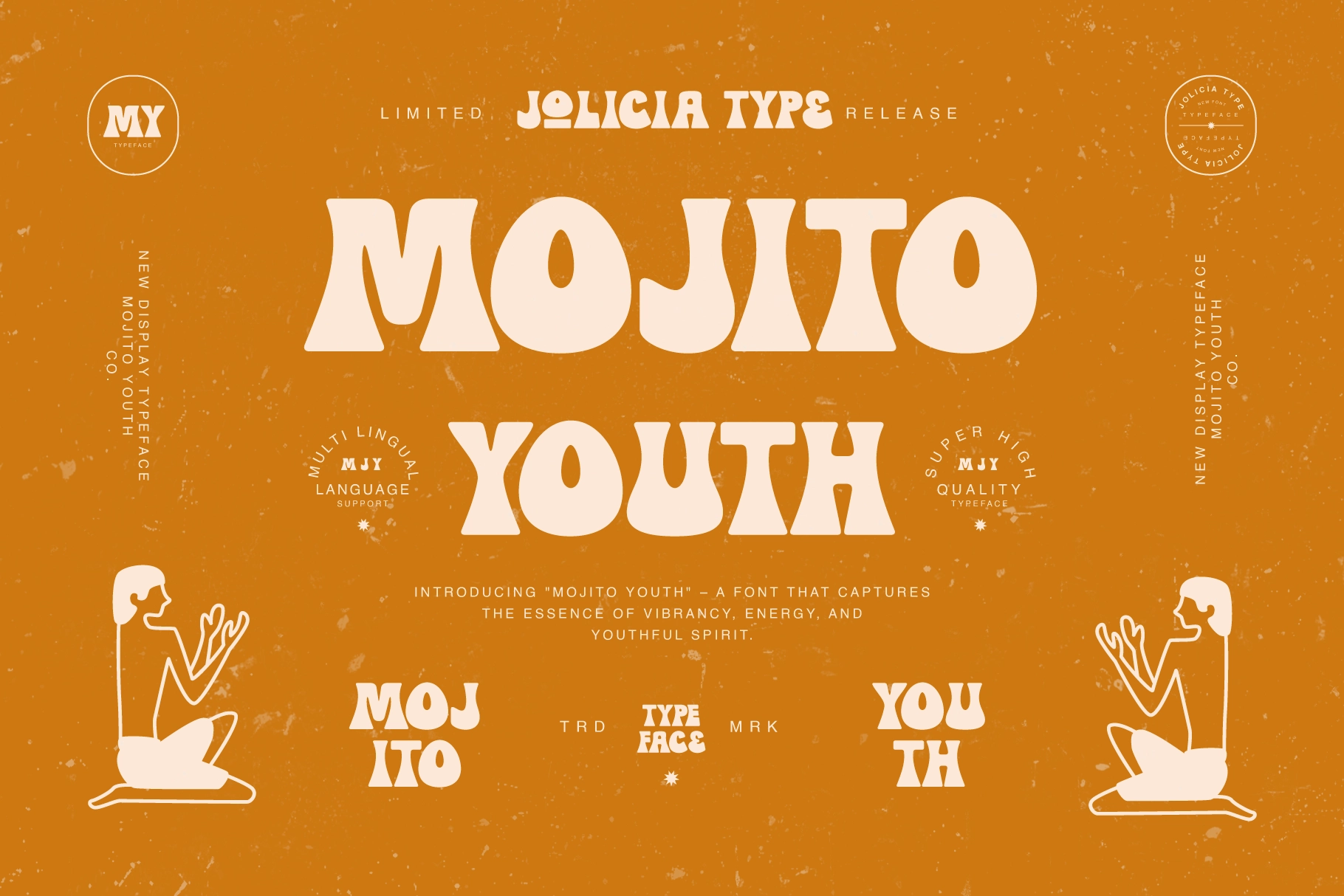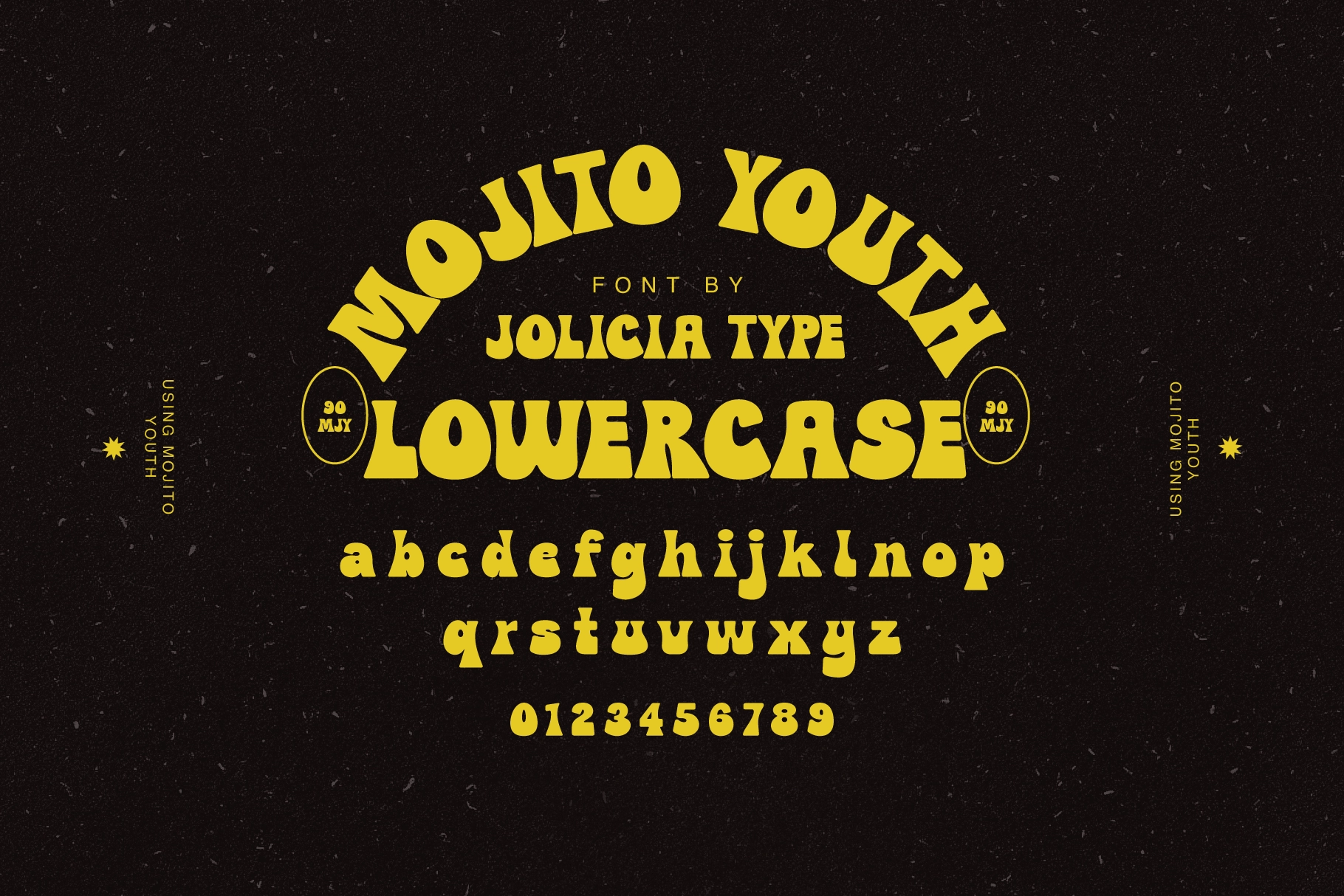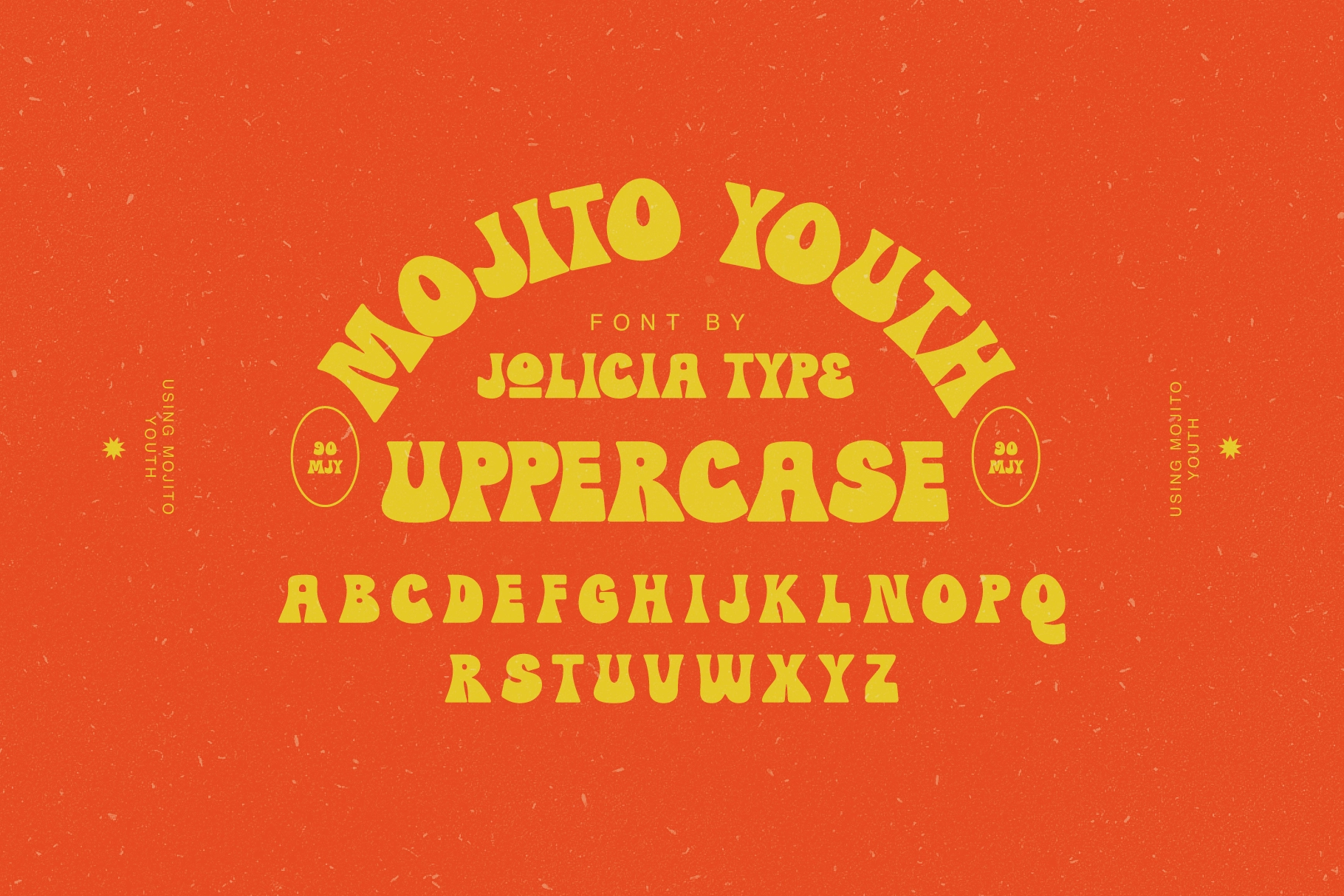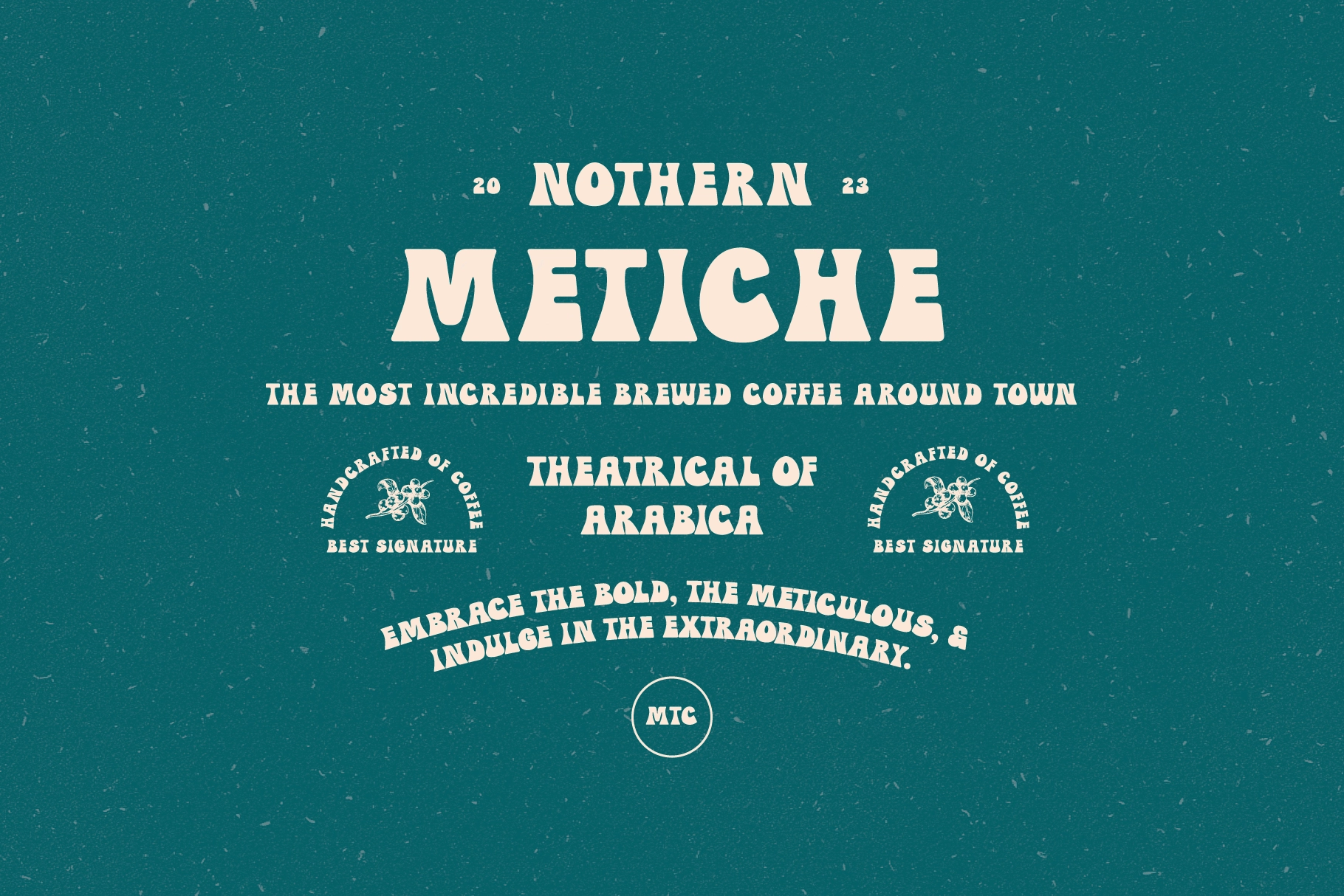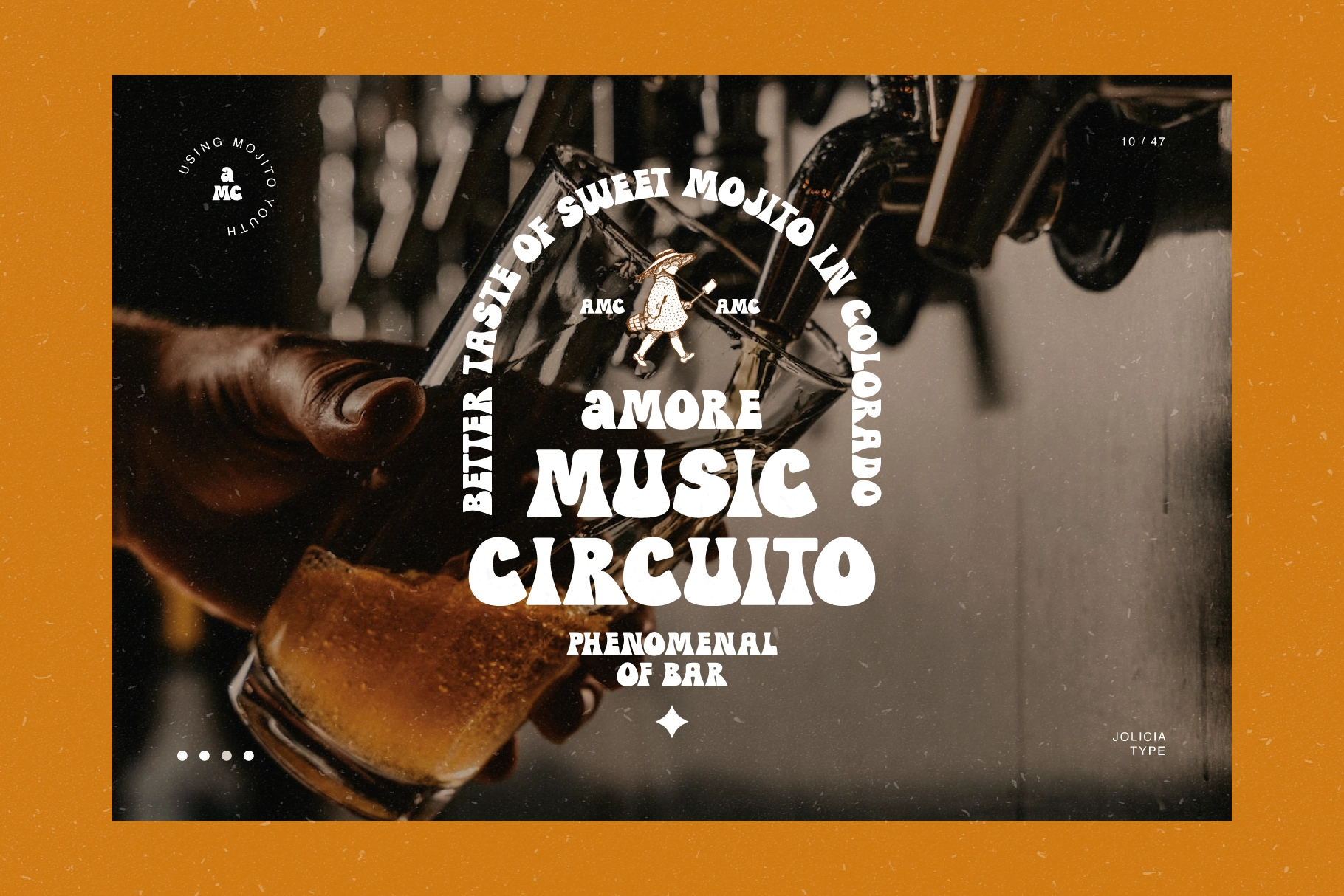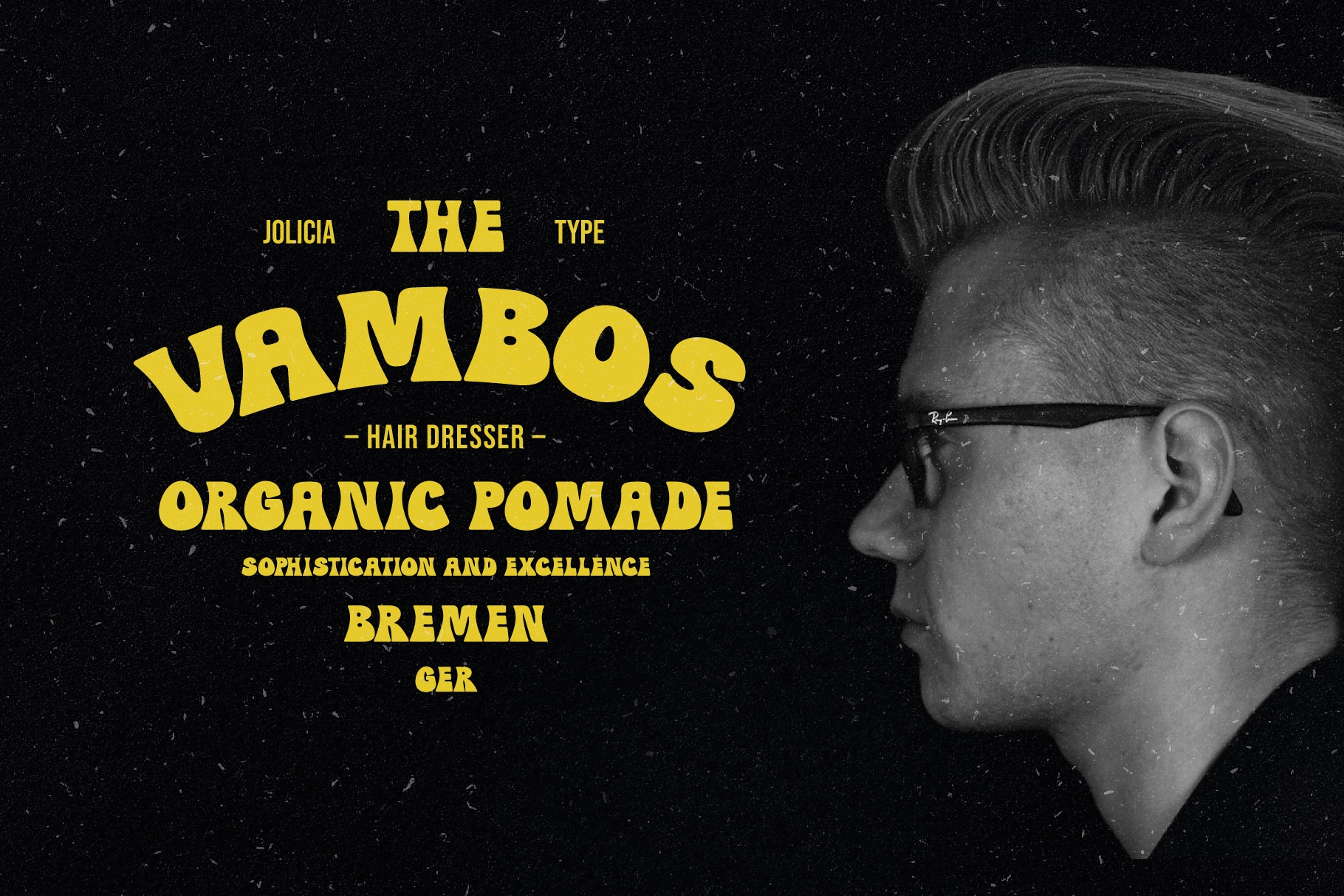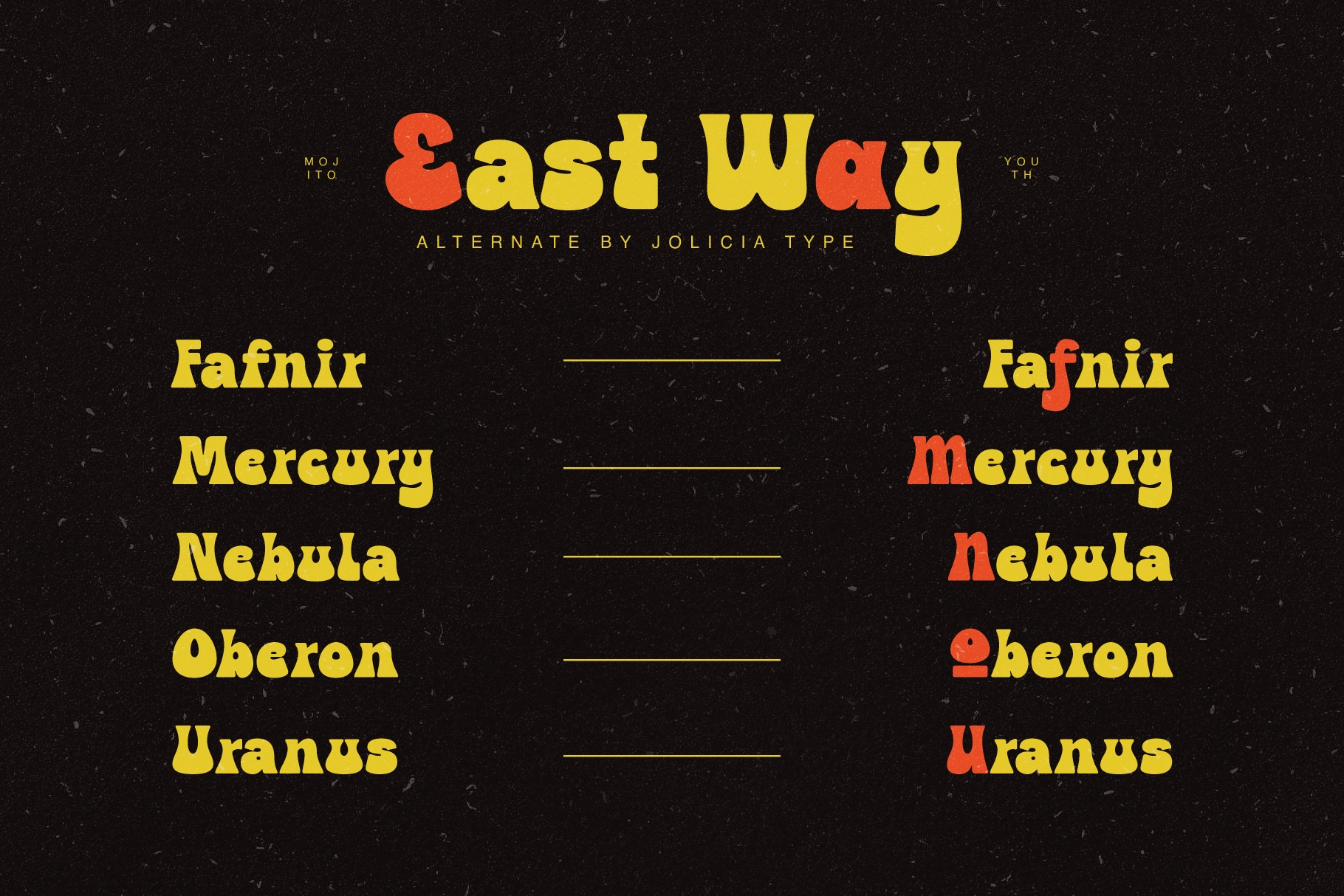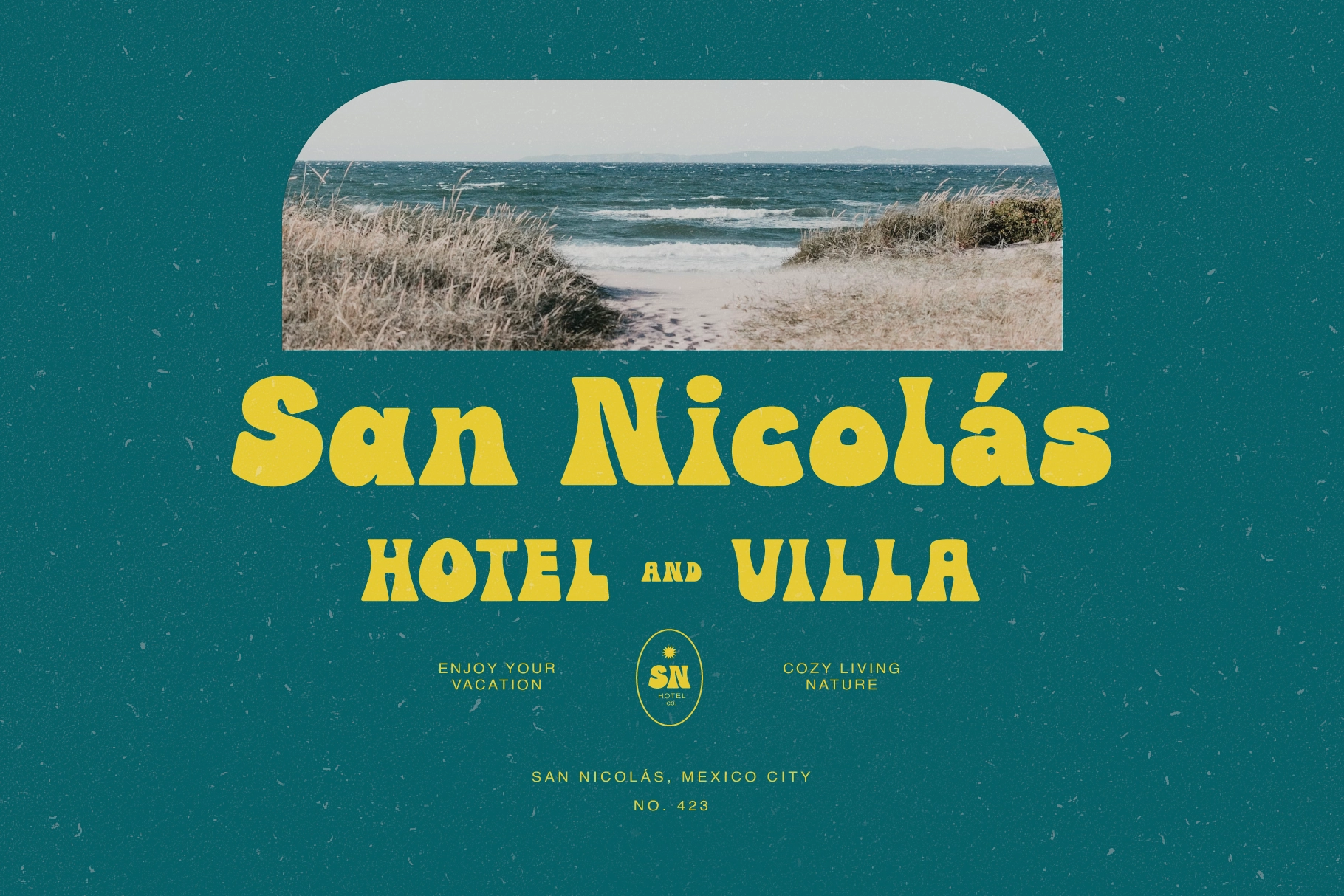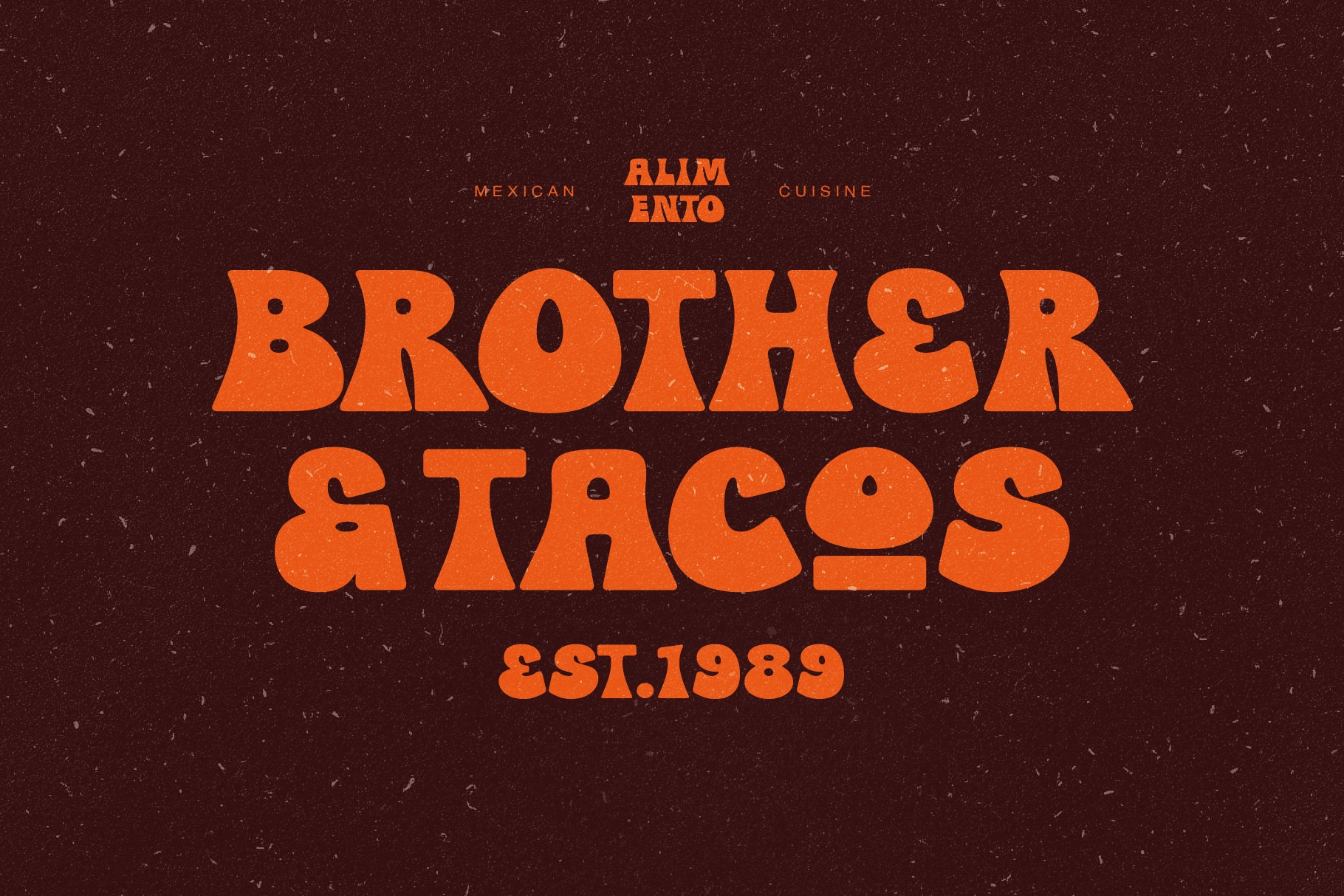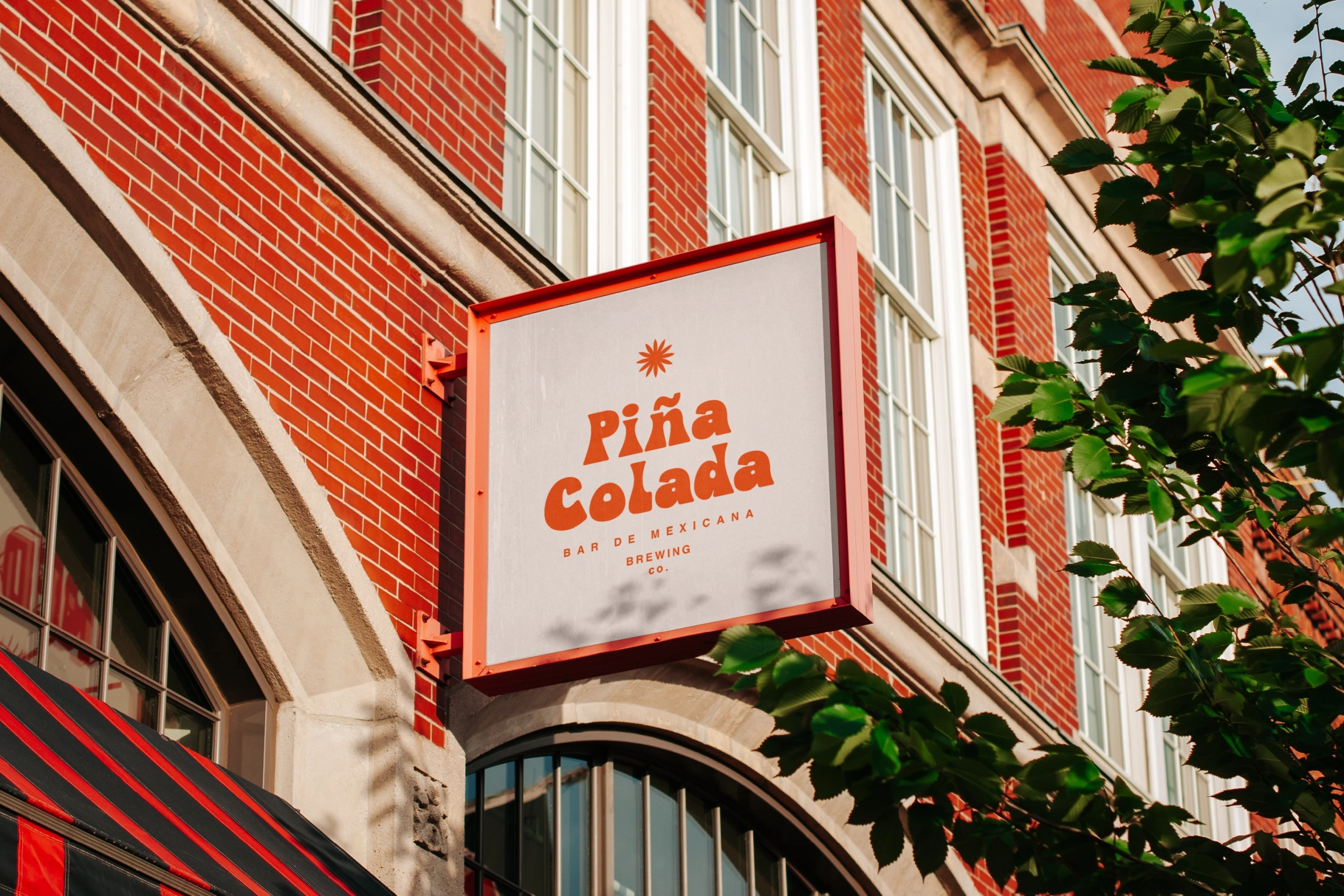
Mojito Youth - Vintage Groovy Display Font
Mojito Youth
This groovy display font has soft chunky letters, playful curves, and a warm retro rhythm pulled straight from sun-faded posters and old record sleeves. The rounded shapes, uneven cuts, and bold weight give each word a friendly graphic punch, perfect for designs that need color, charm, and a little mischief.
Mojito has a bright vintage personality for café branding, summer campaigns, product packaging, book covers, album artwork, T-shirt graphics, festival posters, sticker designs, kids’ projects, social media headers, menu layouts, and merch drops. The alternate characters add extra variation for expressive headlines and custom-looking wordmarks, so your type can wink without turning into a novelty act.
- Alternates
- Display letterforms
- Vintage groovy style